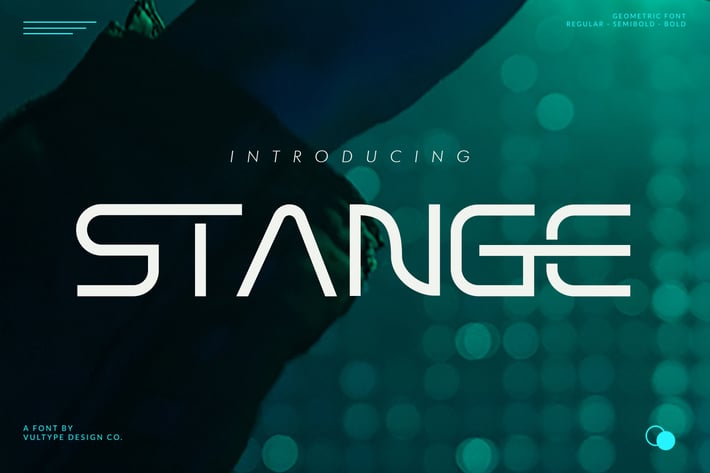
Stange Semi Bold - Logo Font
Introducing, STANGE, a futuristic logo font with Ligature!
STANGE is a sans based font with unique lowercase that will make your design looks futuristic and modern. You can use this font for any purpose, especially to make logotype.
You can mix and match the uppercase and lowercase to make your logo more readable. This font also have special alternates that will make your design more stand-out!
STANGE Semibold